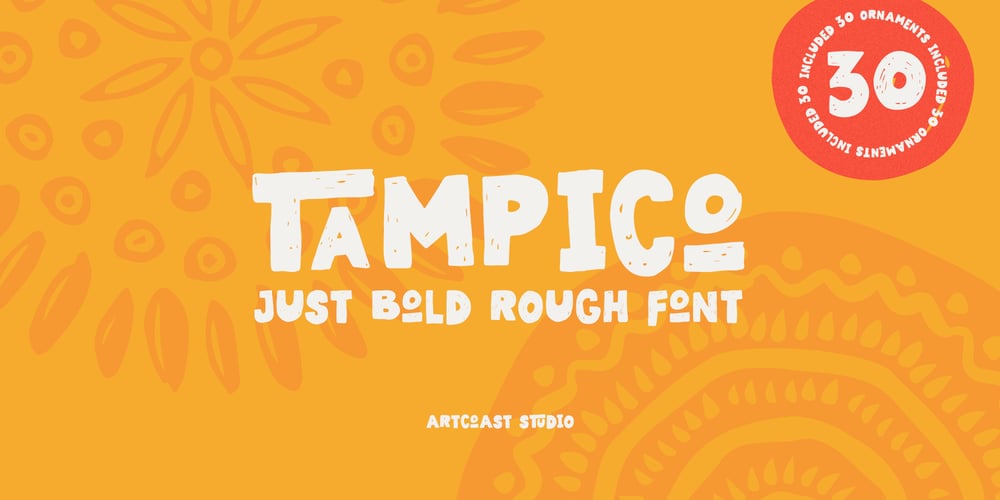
SA Tampico Font Family was designed by Dmitry Mashkin and published by Artcoast. SA Tampico contains 2 styles and family package options. Tampico Typeface is a new font with Rough version, which includes 80+ glyphs and alternative characters. The font looks great on various packages, goods with food. You can also use it to create logos, shortcuts and other design elements.Product Content: SA Tampico Rough SA Tampico Symbols Features: Accents (Multilingual characters) Stylistic Alternates